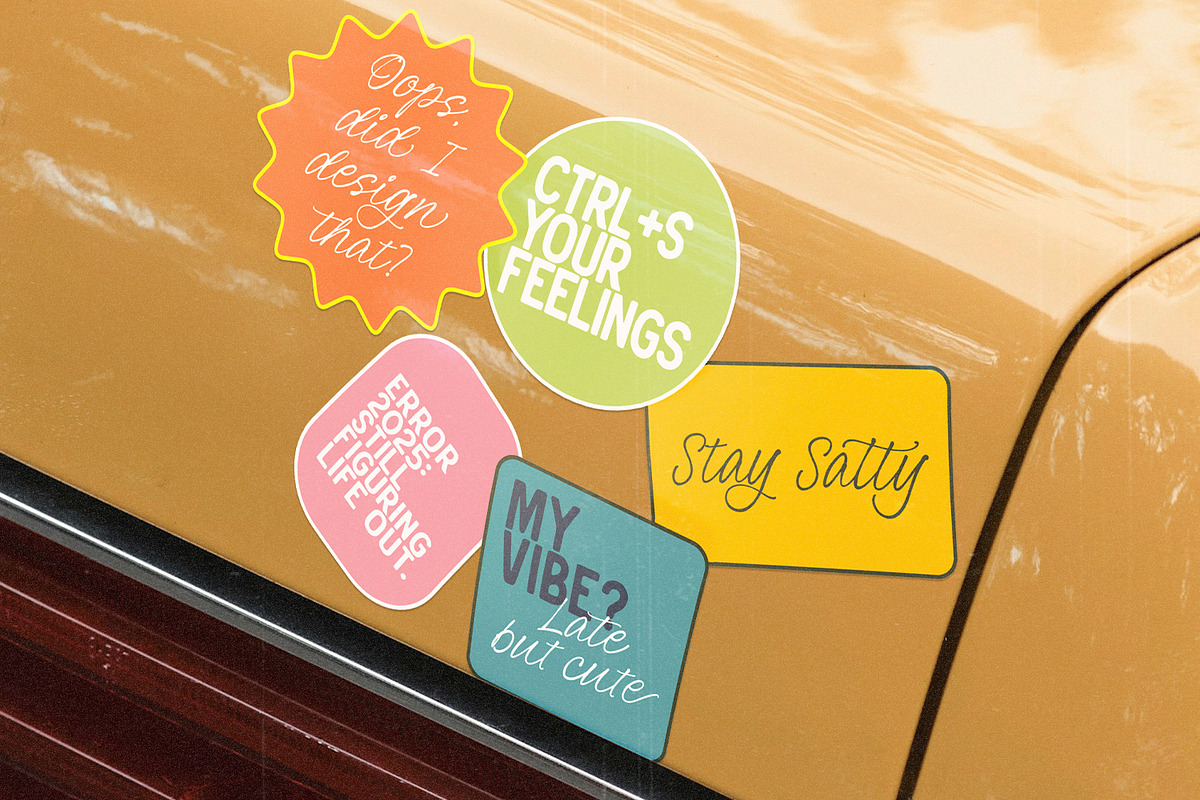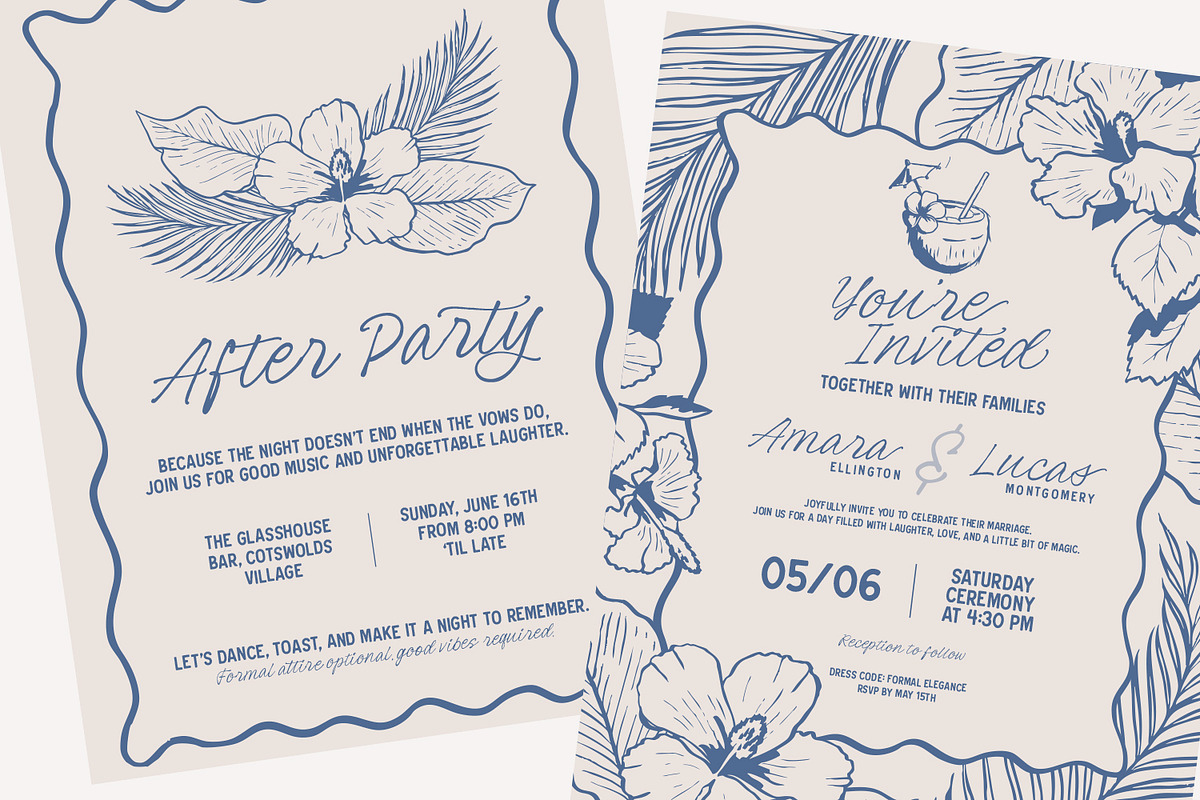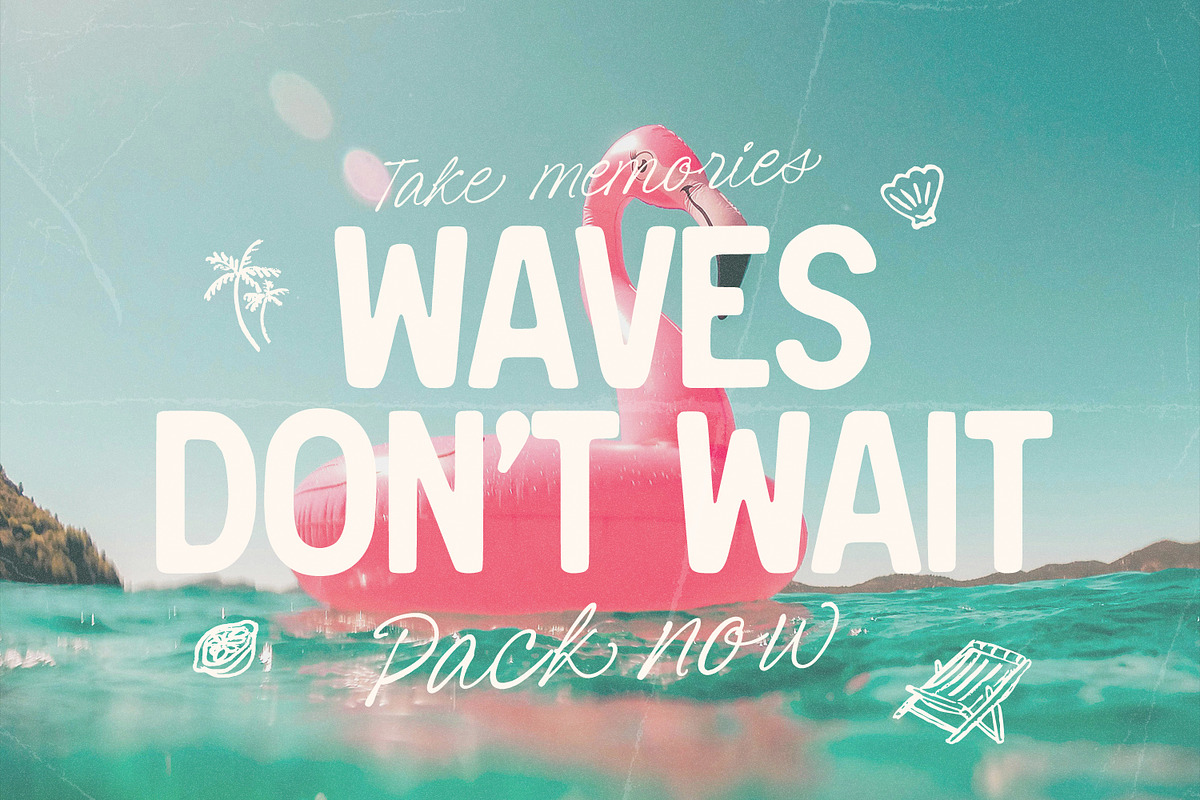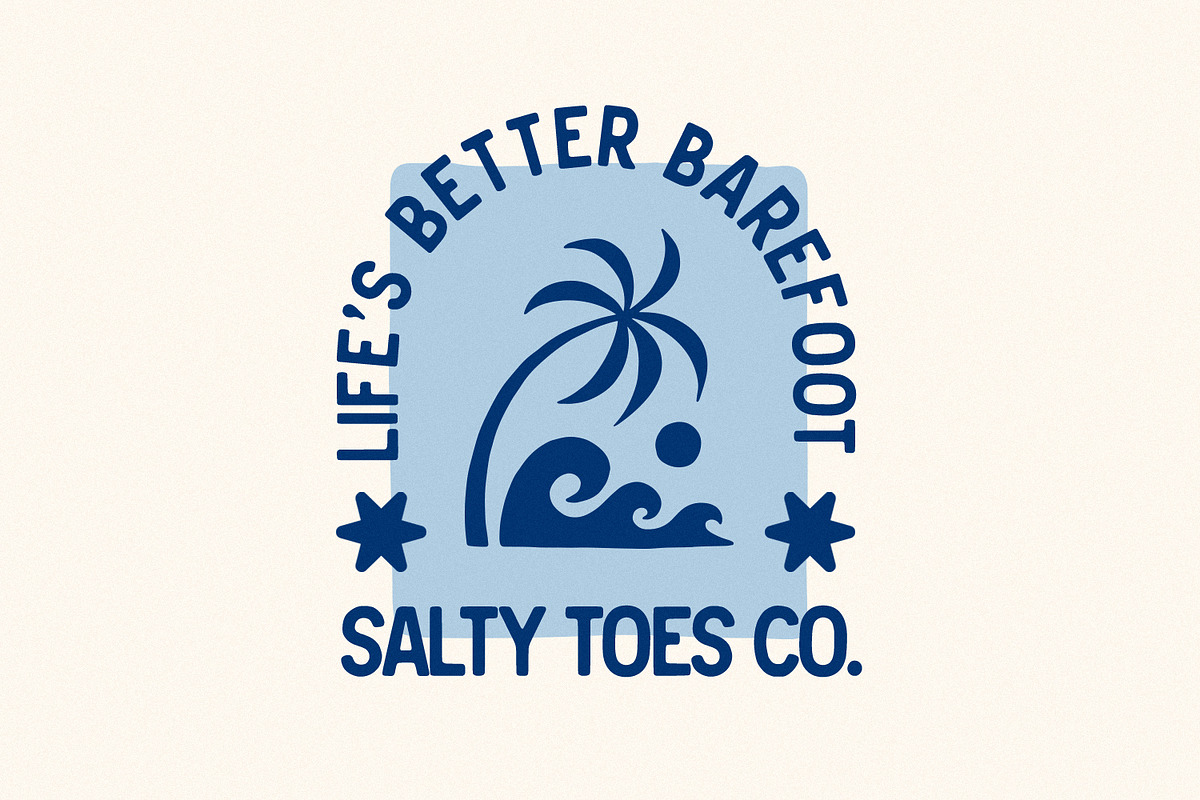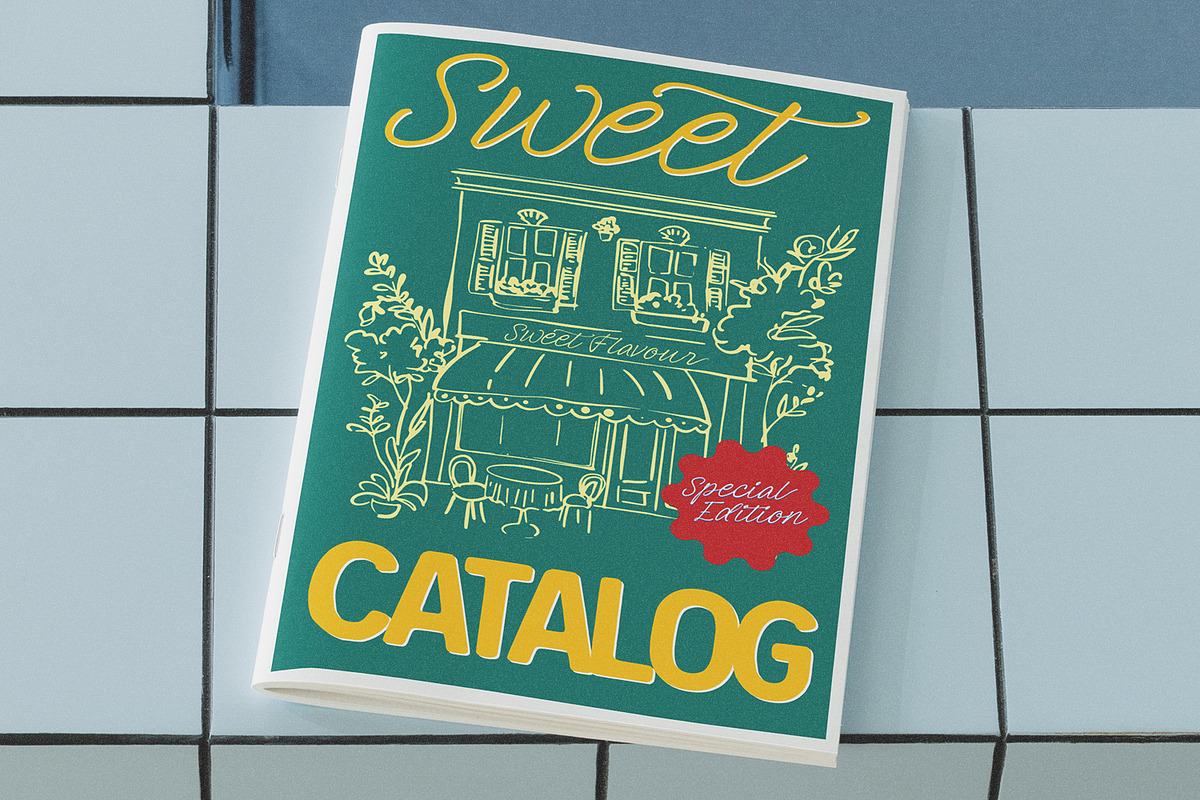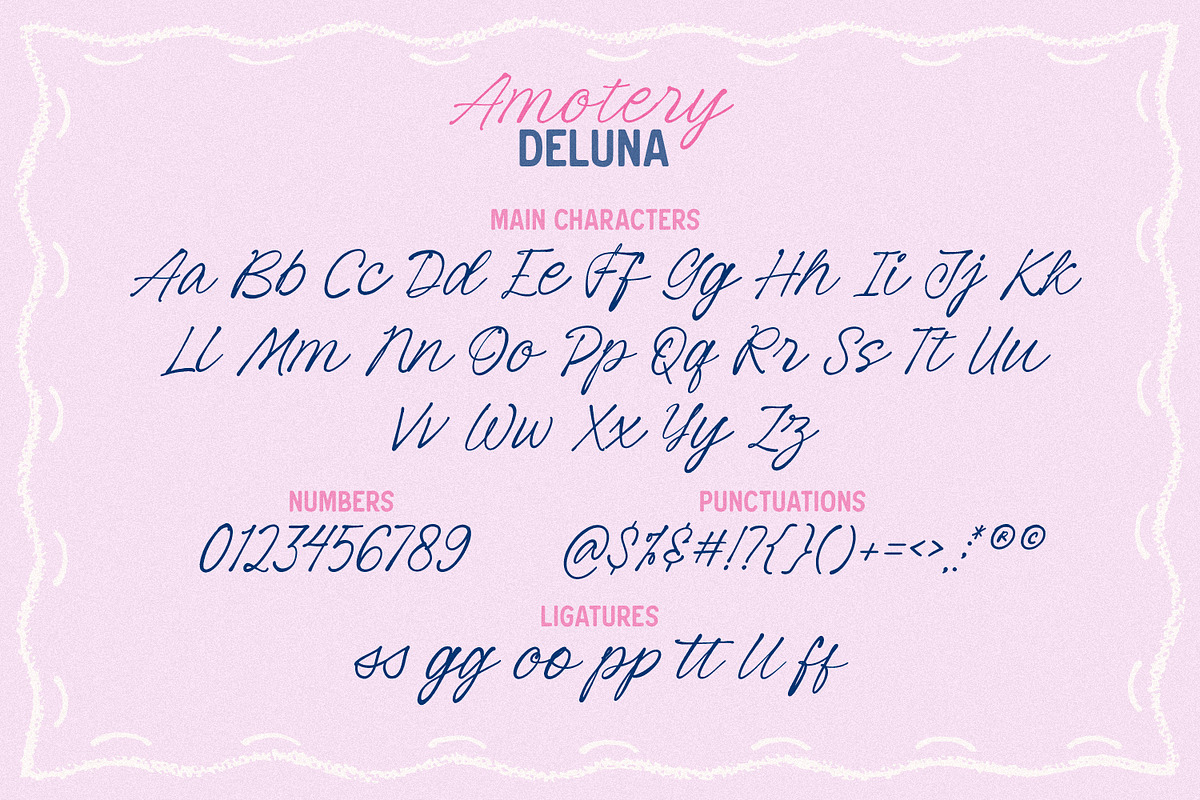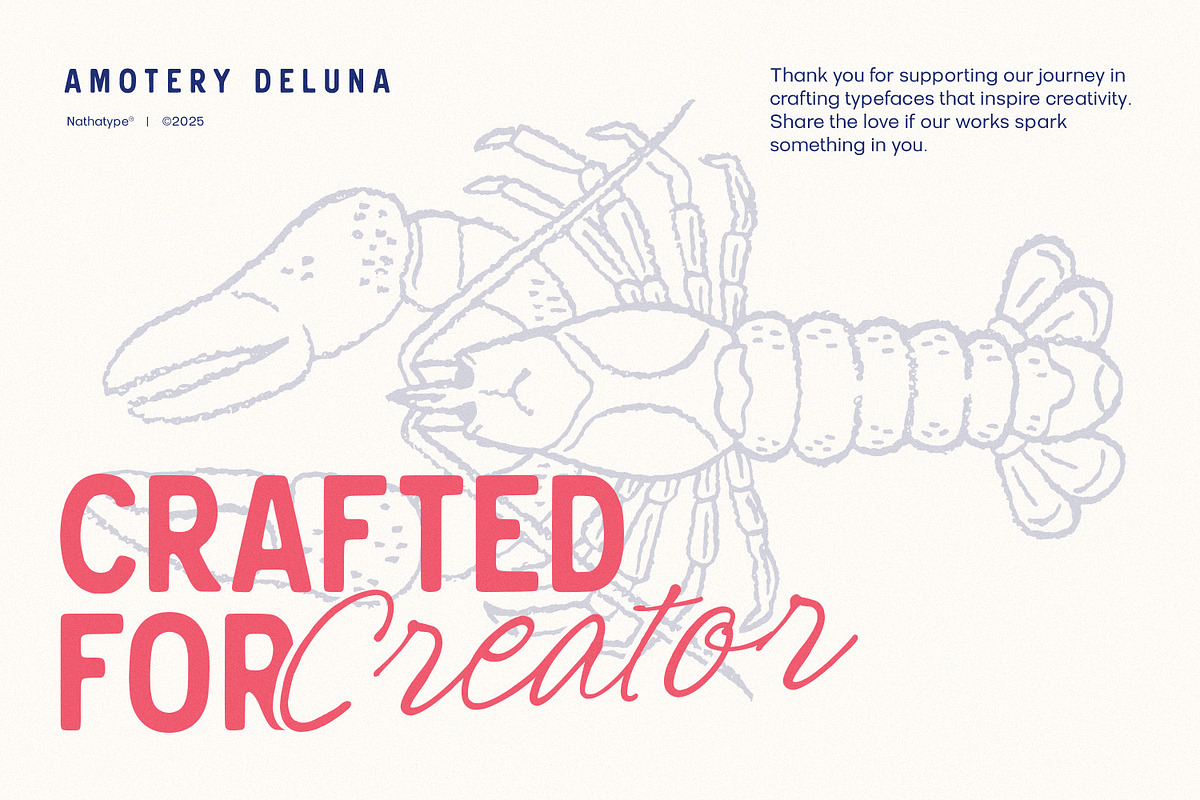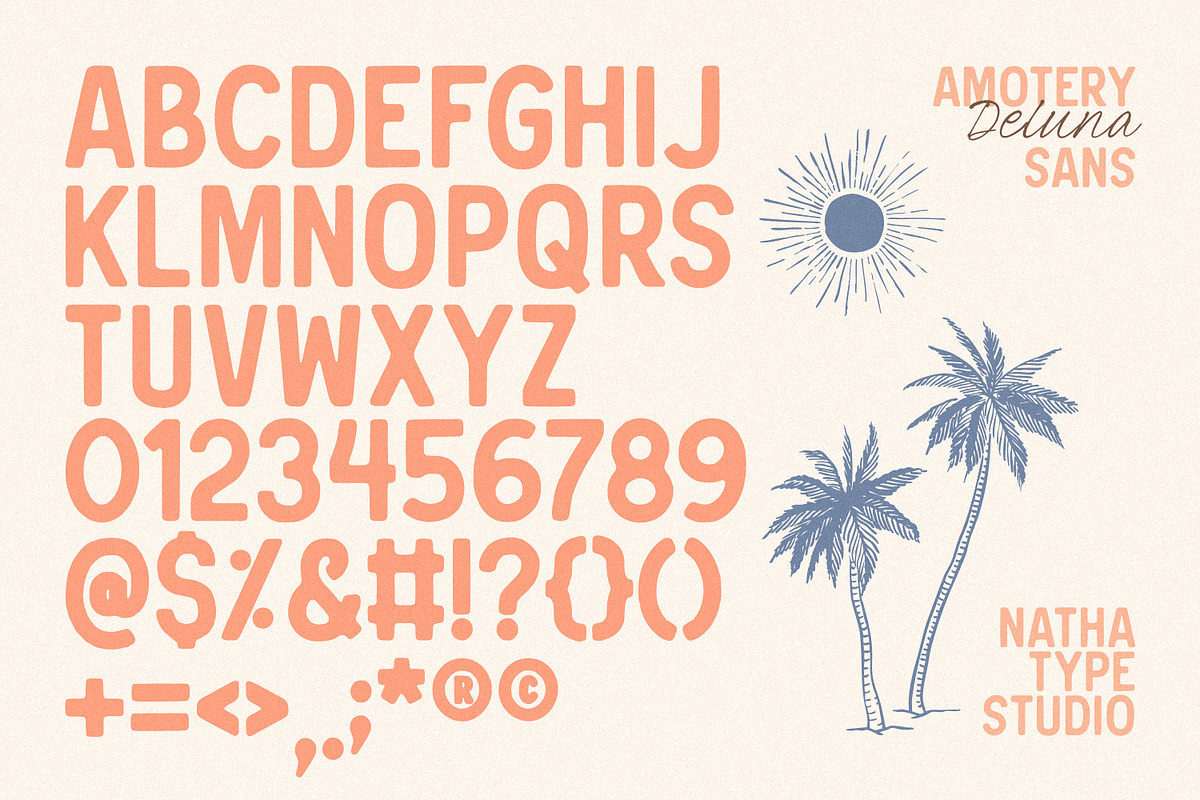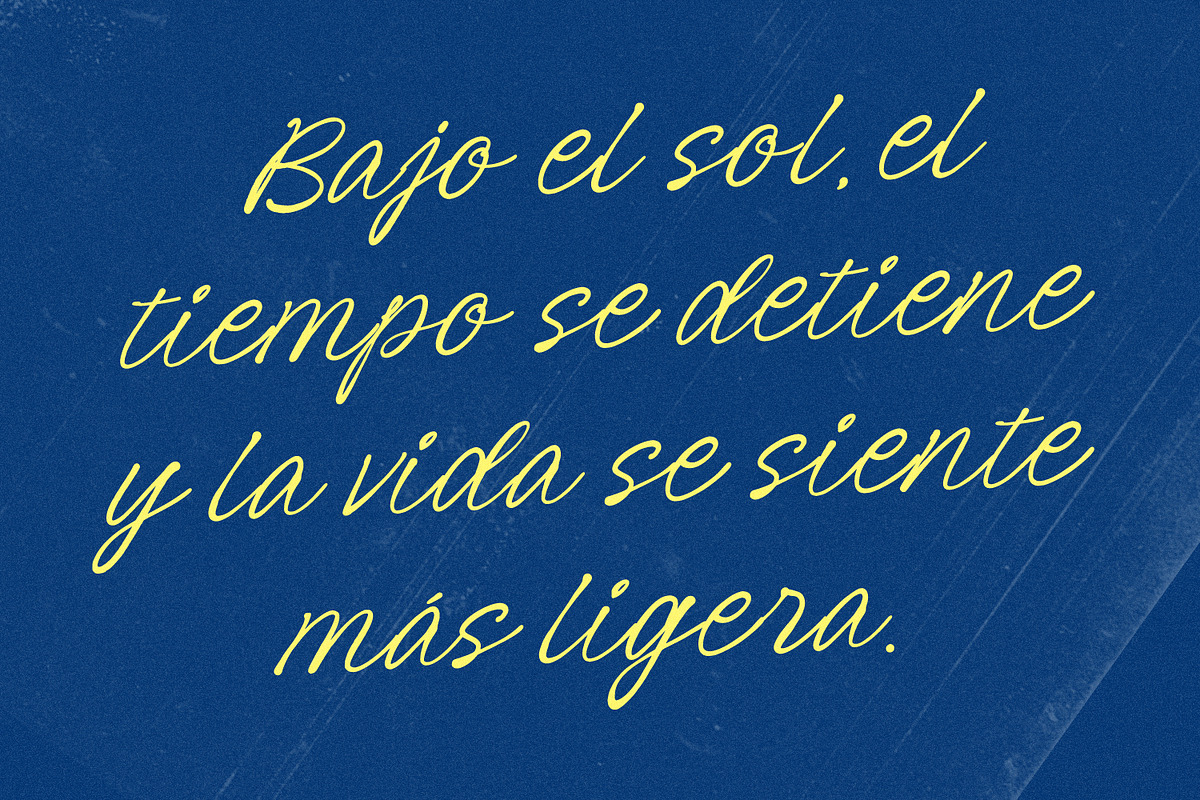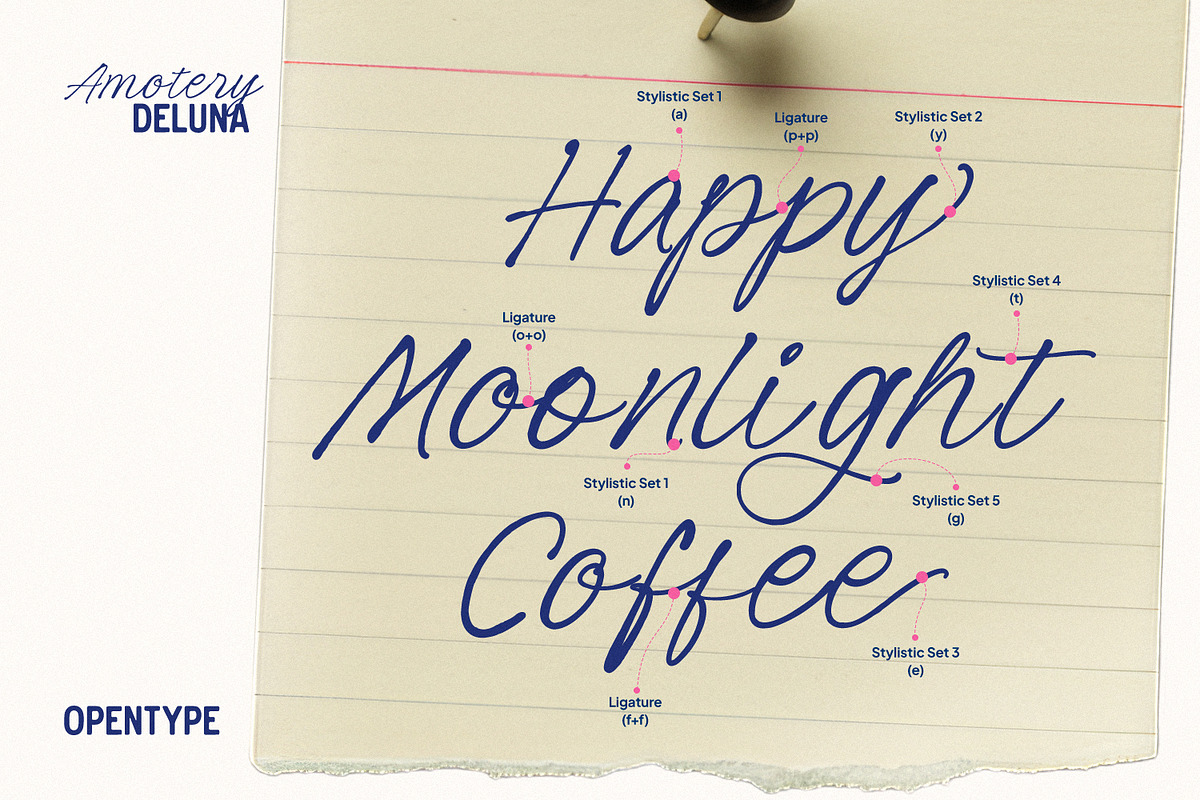
Amotery Deluna
Amotery Deluna is a beautiful script and sans serif font duo designed to bring versatility, and professional charm. The script font in Amotery Deluna is crafted with smooth, flowing strokes that connect naturally between letters, replicating the authentic movement of real handwriting. In contrast, the bold uppercase sans serif provides balance with its clean, confident lines and strong presence. Together, these two styles create a cohesive and polished look that works beautifully across both print and digital designs. In addition, enjoy the features here.
- Stylistic Sets
Amotery Deluna fits in branding, quotes, invitations, logos, posters, and many more designs. Find out more ways to use this font by taking a look at the font preview.